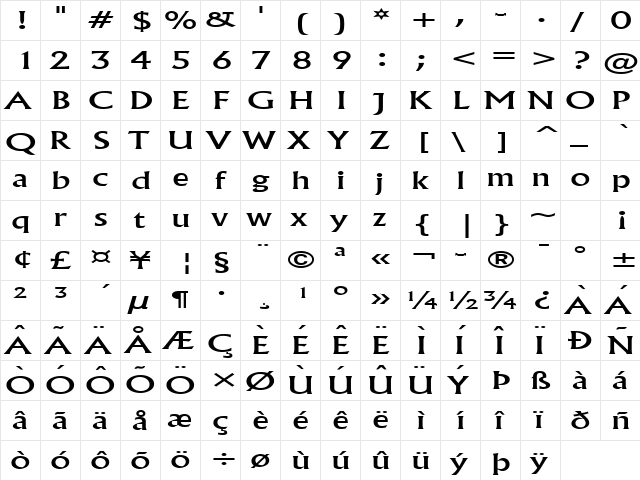
Flair Extended Normal
Design Context for Flair Extended Typeface
Flair Extended offers clean, dependable letterforms without strong stylistic allegiance, making it a practical choice for designers who need flexibility.
Pro Tip: Use Flair Extended in both headline and body roles to test its range before committing to a single application.